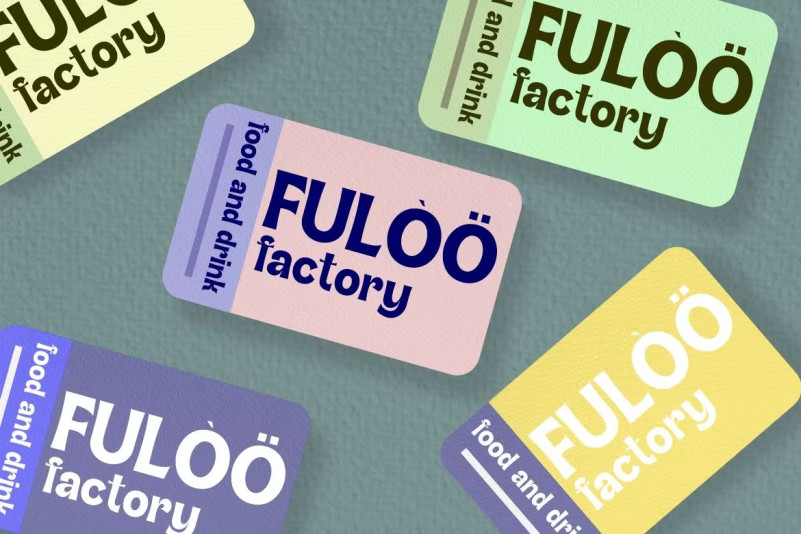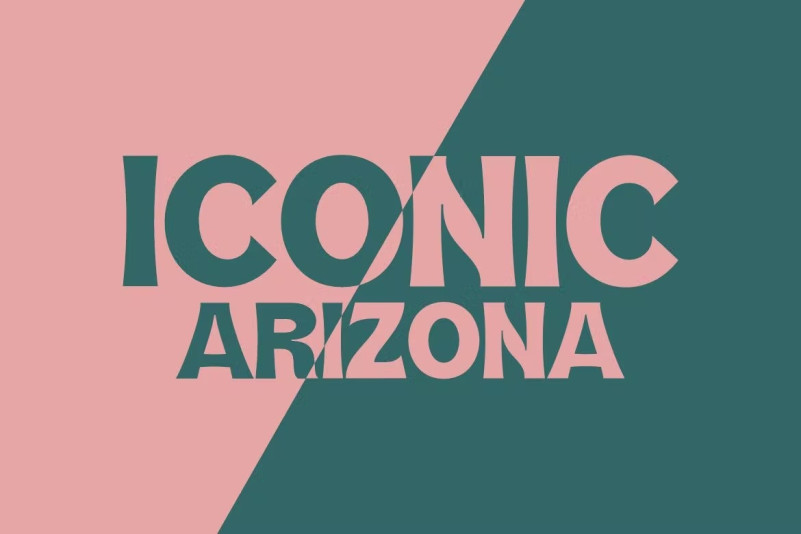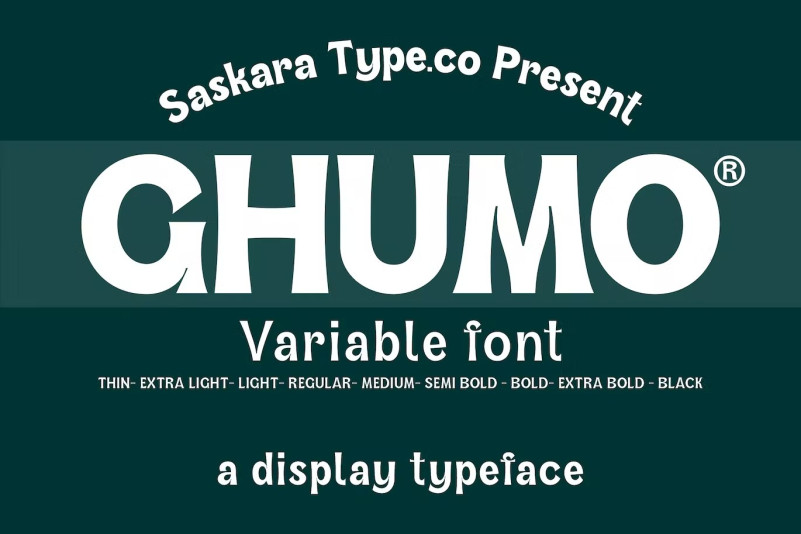
Ghumo Font
Ghumo is a fun and powerful typeface, contains 9 fonts covering modern styles
This font is ideal for simplifying your creative work such as: branding, movie titles, packaging, ads, posters, web or apps.